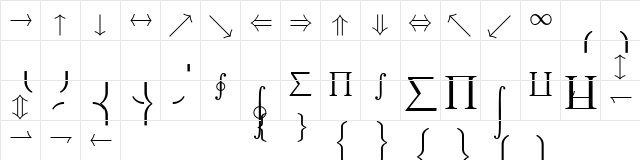
euex10 Regular
Design Context for euex10 Typeface
euex10 is a composed and adaptable typeface that performs quietly and consistently across a wide range of design contexts.